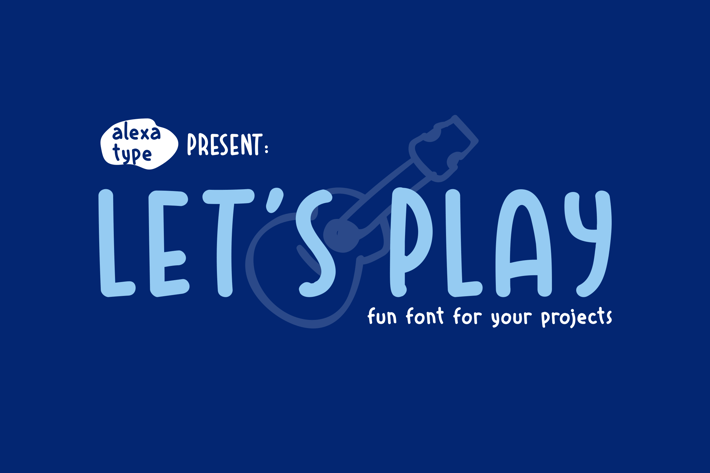
Let's Play - Fun Font
Let’s Play is a cheerful, handwritten font designed to bring warmth, fun, and personality to any project. With its casual strokes and friendly character, this font is perfect for kids' materials, branding, social media, and playful quotes. Whether you're creating summer camp posters, school projects, or inviting packaging, Let’s Play ensures your designs feel approachable and full of life.
Key Features
Handwritten, Playful Style – Brings a natural, personal touch to your text.
Perfect for Kids & Lifestyle Branding – Ideal for educational materials, friendly packaging, and fun branding.
Casual & Easy-to-Read Letterforms – Maintains a balance between playful and legible.
Optimized for Digital & Print – Works on posters, greeting cards, stickers, and social media.
Let’s Play is perfect for teachers, content creators, and brands that want a casual, fun-loving aesthetic. Its hand-drawn charm makes learning materials, children’s books, and lifestyle branding feel warm and engaging. Whether you’re working on summer-themed marketing, adventure graphics, or whimsical typography for social media, Let’s Play adds a friendly, joyful vibe to every project.